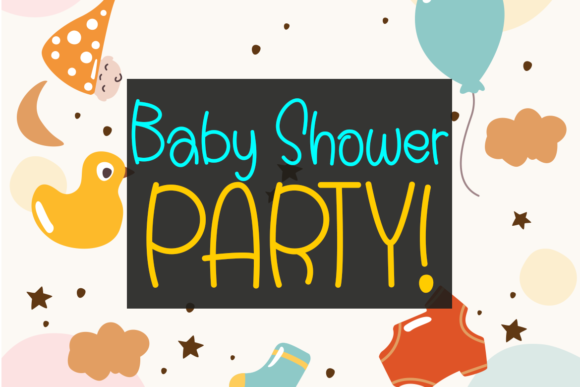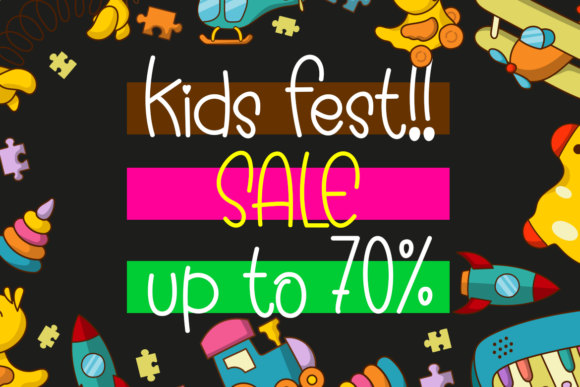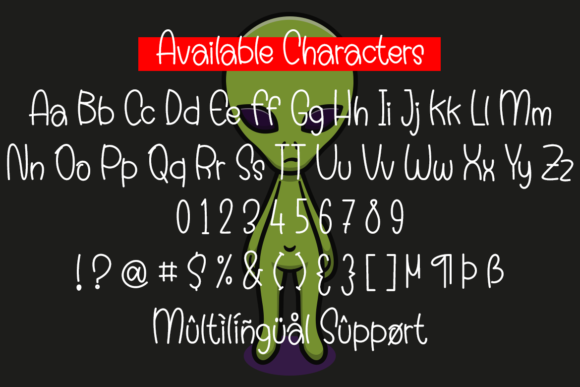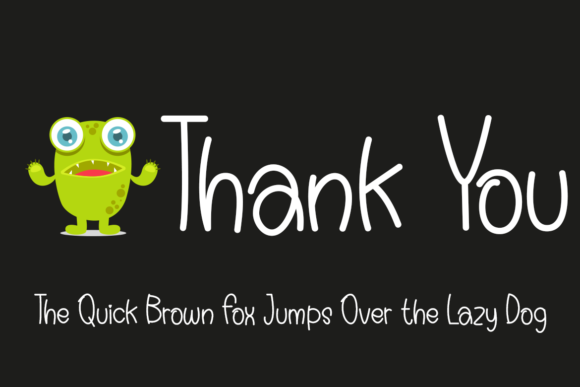
The Perfect Font for a Cosmic Touch
You’ve finally landed on the perfect idea for your next design project, but something’s missing – a dash of whimsy, a pinch of fun, and a whole lot of personality. That’s when you remember the Alien at School Font, a delightful lettered display font that’s out of this world.
Designed to bring a smile to your audience’s faces, the Alien at School Font is perfect for adding a touch of playfulness to your projects. Whether you’re working on a blog post, creating a logo, or crafting a birthday invitation, this font is sure to make your designs stand out from the crowd. For designers, this font is a valuable addition to their toolkit, offering a unique and easy-to-read style that’s perfect for a wide range of applications.
Alien at School Font Key Features
- Font Family: Alien at School Font is a unique, hand-drawn font family designed to resemble a child’s handwriting.
- Character Count: The font family includes over 700 glyphs, including uppercase and lowercase letters, numbers, punctuation marks, and special characters.
- Unique Characteristics: The font’s irregularities and imperfections give it a charming, hand-drawn feel, perfect for creating a sense of nostalgia or playfulness in designs.
Designer Review: Alien at School Font
At first glance, the Alien at School Font caught my attention with its quirky and playful vibe. The designer has successfully incorporated a fun, cartoonish aesthetic that’s perfect for creating engaging and eye-catching visuals. ✨
- The font’s unique, hand-drawn feel gives it a personal touch, making it suitable for designs that require a more human element.
- The wide range of characters and symbols available in the font makes it versatile for various applications, from posters to social media graphics.
However, I do have some concerns about the font’s limitations. ⚠️
- The font’s bold and colorful nature can be overwhelming in certain contexts, making it less suitable for more formal or professional designs.
- The font’s letterforms can be slightly inconsistent in terms of spacing and alignment, which may require some adjustments in certain design situations.
Overall, the Alien at School Font is a fun and creative choice for designers looking to add a playful touch to their projects. While it may not be the best fit for every design scenario, it’s certainly a great option for those seeking a unique and eye-catching aesthetic. With some careful consideration of its limitations, this font has the potential to elevate designs and leave a lasting impression.
Use the Alien at School Font to add a playful touch to your designs, especially for kids-related content, sci-fi themes, or retro-inspired projects.
Experiment with different font sizes, colors, and styles to create a unique look.
Combine the Alien at School Font with other fun fonts to create a visually appealing mix.
The Alien at School Font is suitable for:
– Kids’ party invitations and decorations
– Sci-fi themed posters and flyers
– Retro-inspired advertisements and marketing materials
– Educational content, such as worksheets and activity sheets